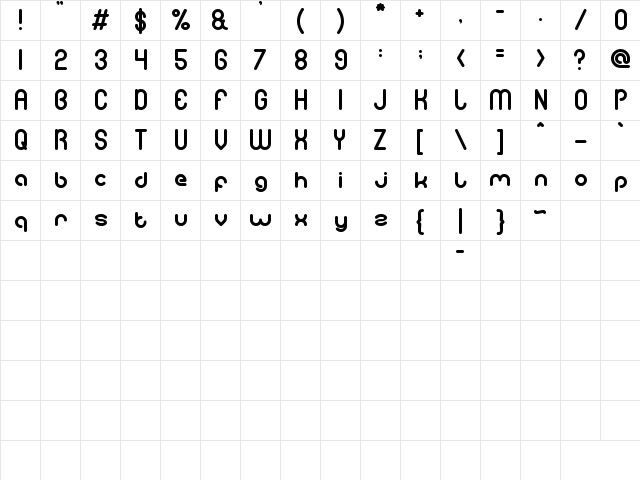
Complete gitchgitch Regular glyph index. Displaying only characters natively supported by gitchgitch Regular font.
gitchgitch is a composed and adaptable typeface that performs quietly and consistently across a wide range of design contexts.